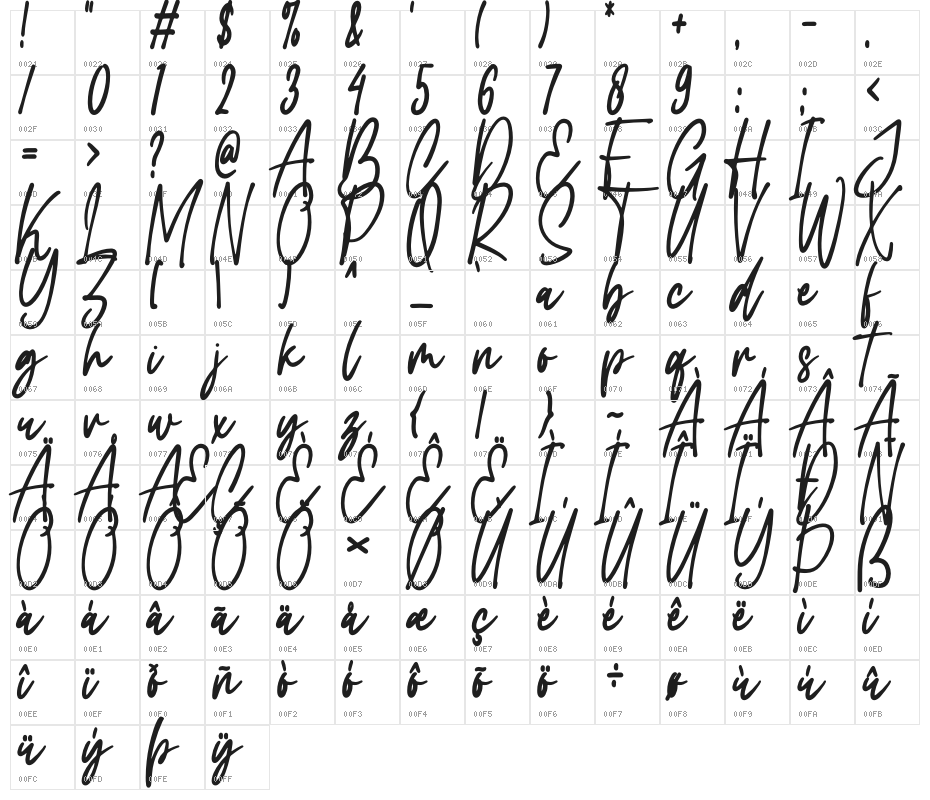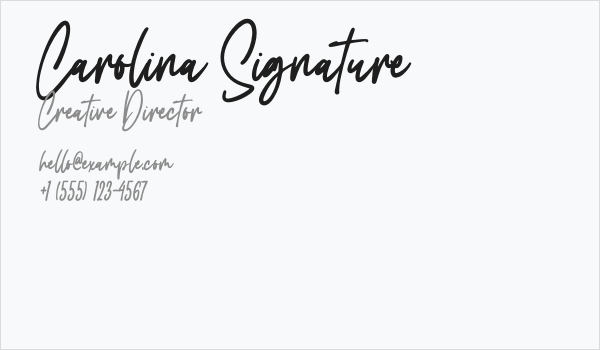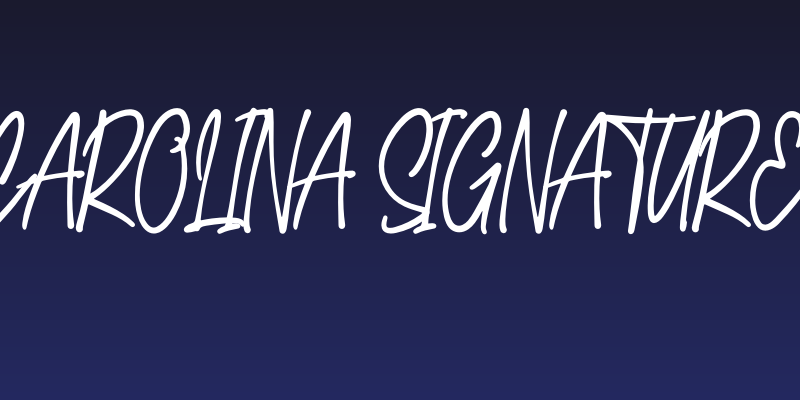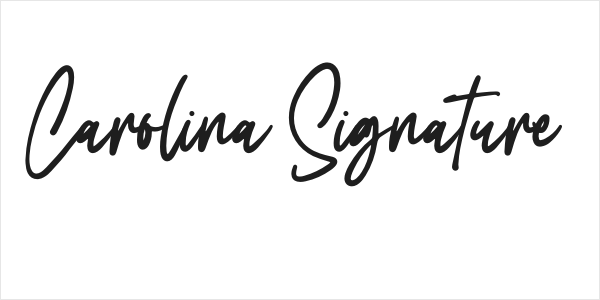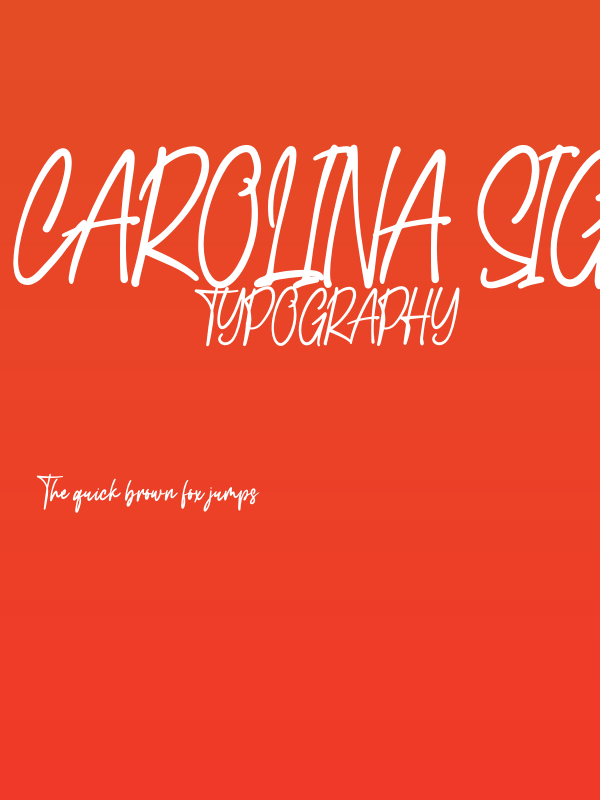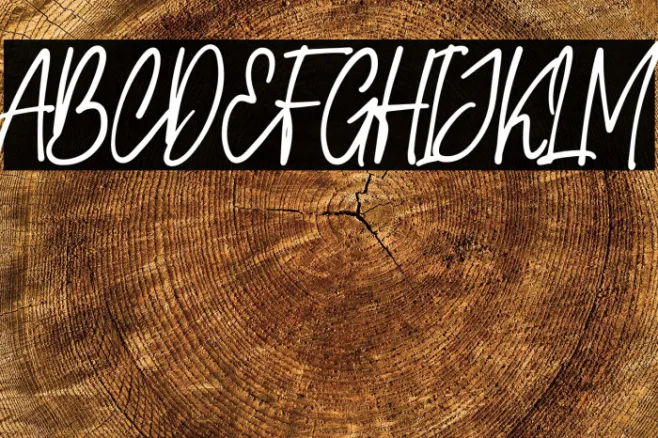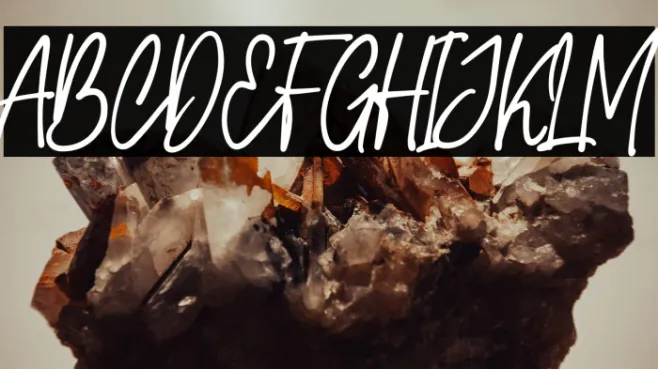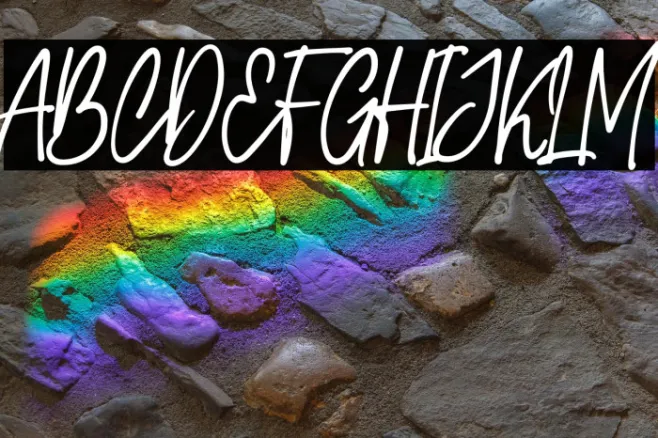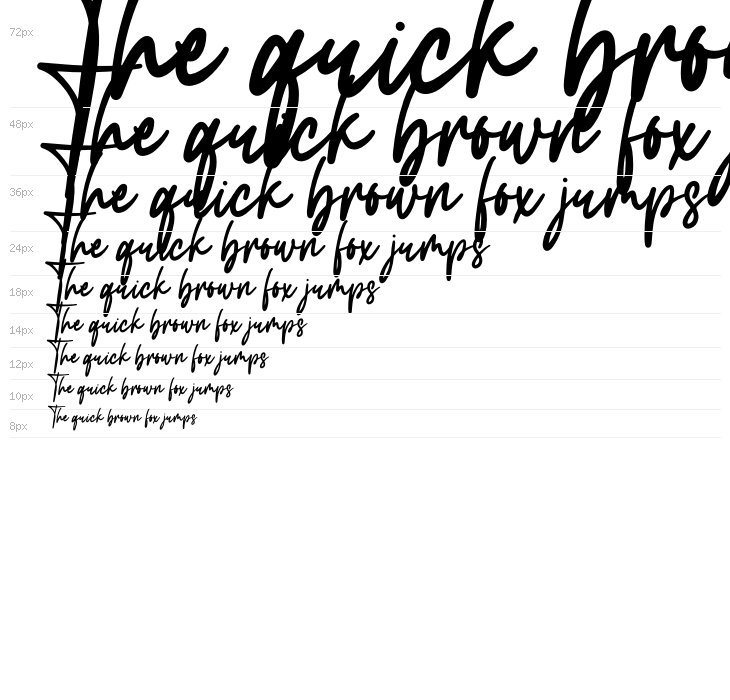
Carolina Signature Font
Carolina Signature Description
This font exudes a modern and elegant handwritten style, characterized by its fluid and connected letterforms. The uppercase letters are tall and slender, with a slight slant that adds a dynamic feel. The lowercase letters maintain a consistent flow, enhancing the script's natural and personal touch. Numbers and special characters are crafted with the same attention to detail, ensuring a cohesive look across all elements. The overall appearance is sophisticated yet approachable, making it suitable for a variety of creative applications.
| Use Case | Logos, Invitations, Social Media |
| Proposed Projects | Ideal for wedding invitations, personal branding, social media graphics, and elegant packaging designs. |